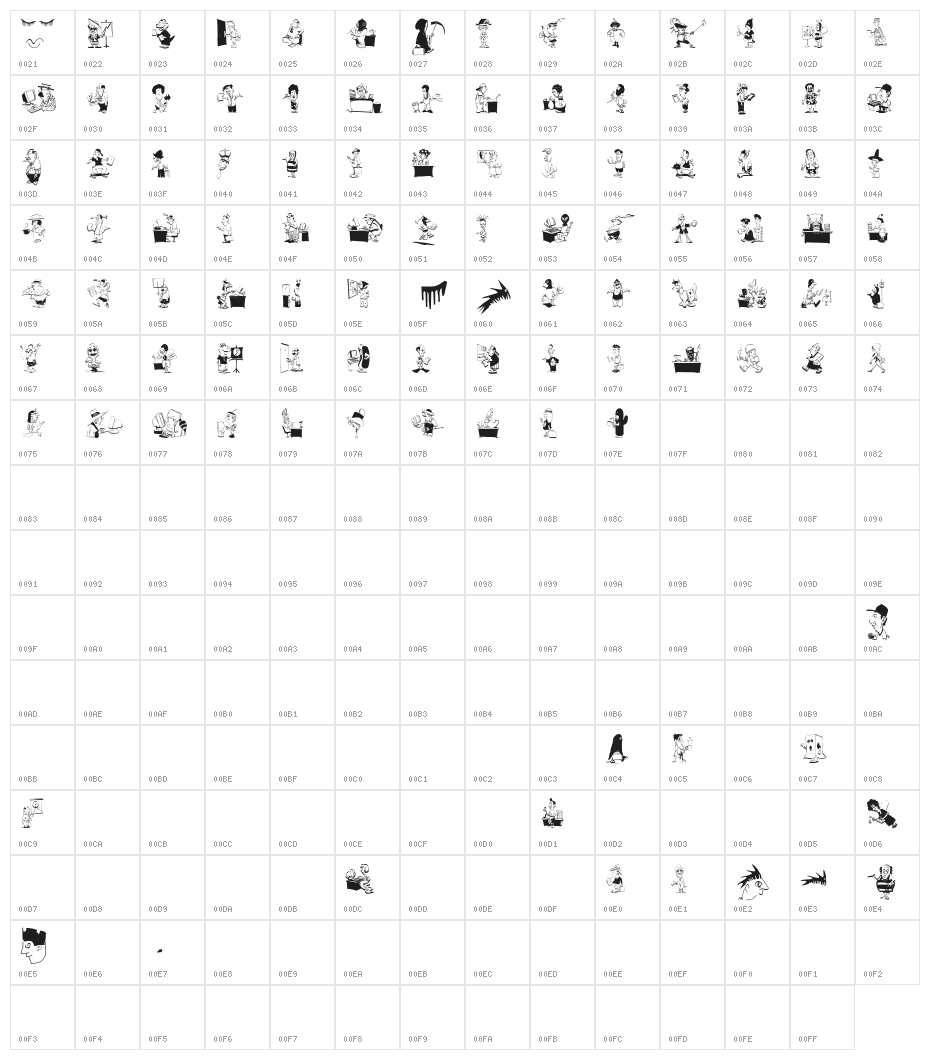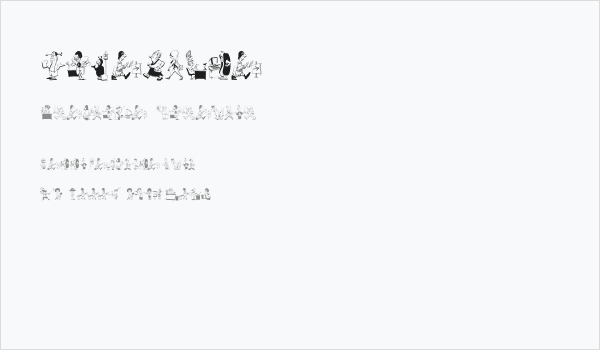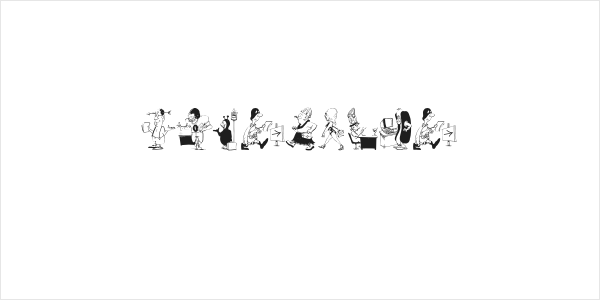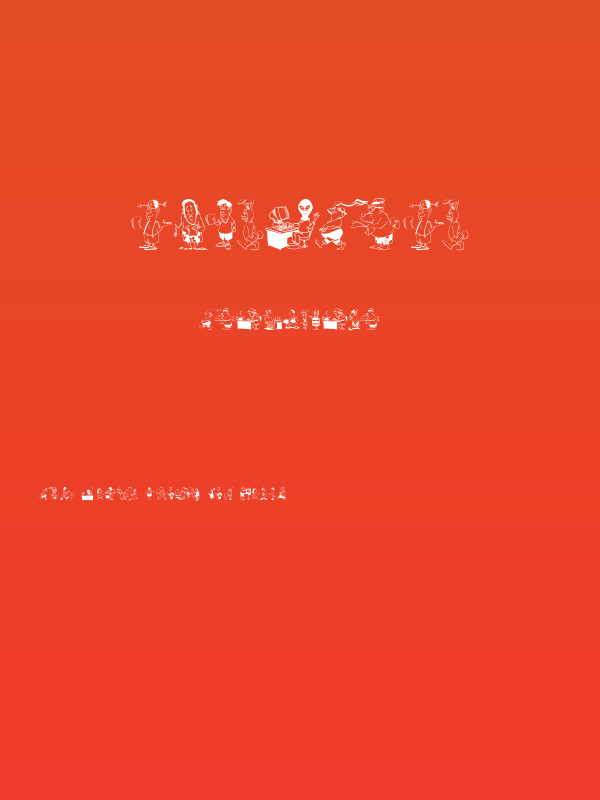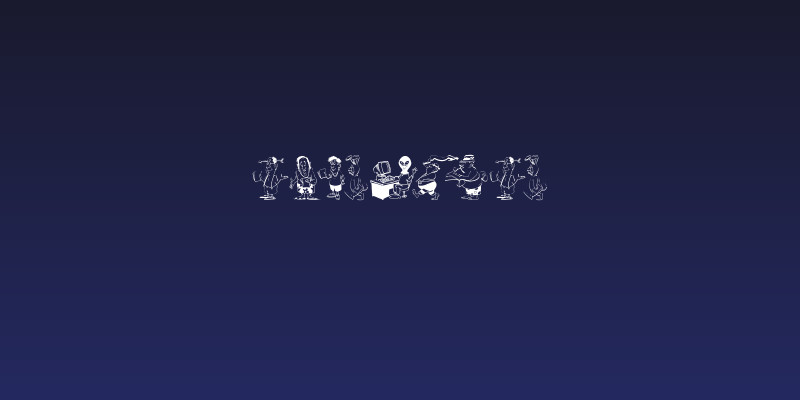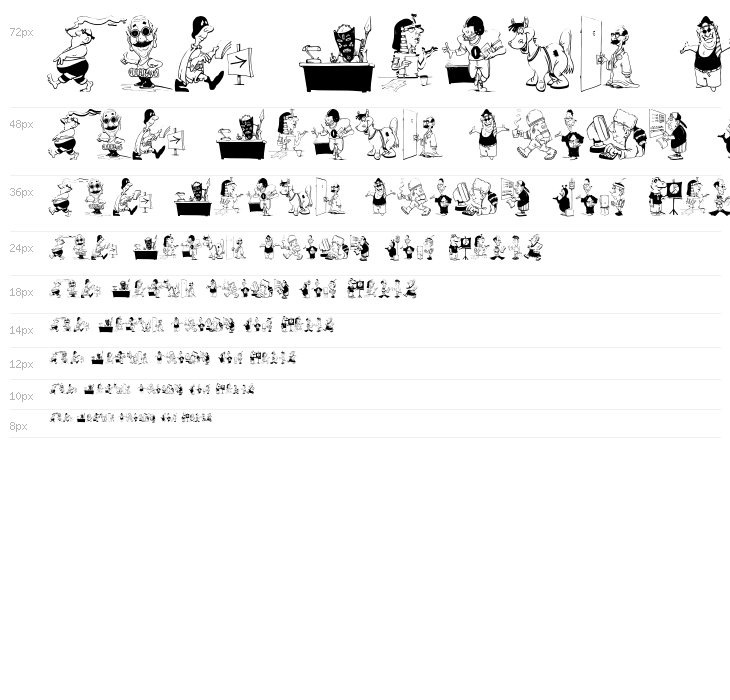
Lifestyle Font
Lifestyle Description
A highly decorative and playful display font composed of hand-drawn cartoon characters, each representing a letter, number, or symbol. The glyphs are illustrated with exaggerated features and humorous, lifestyle-themed scenarios, making each character unique and visually engaging.
| Overall Style | Decorative, Playful, Cartoonish |
| Use Case | Headlines, Posters, ChildrenΓ’β¬β’s content, Themed graphics |
| Proposed Projects | ChildrenΓ’β¬β’s books, comic strips, playful posters, party invitations, educational materials, novelty branding. |